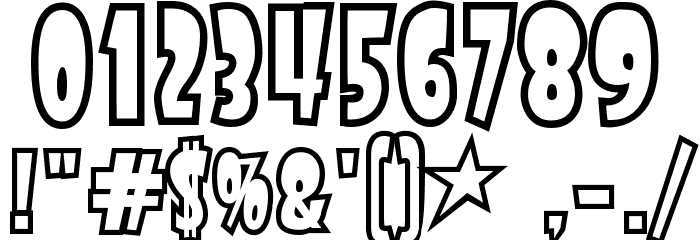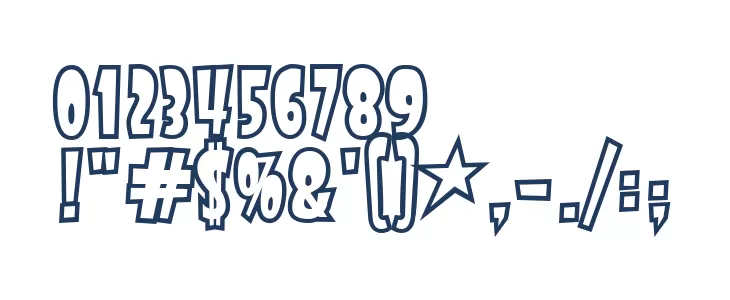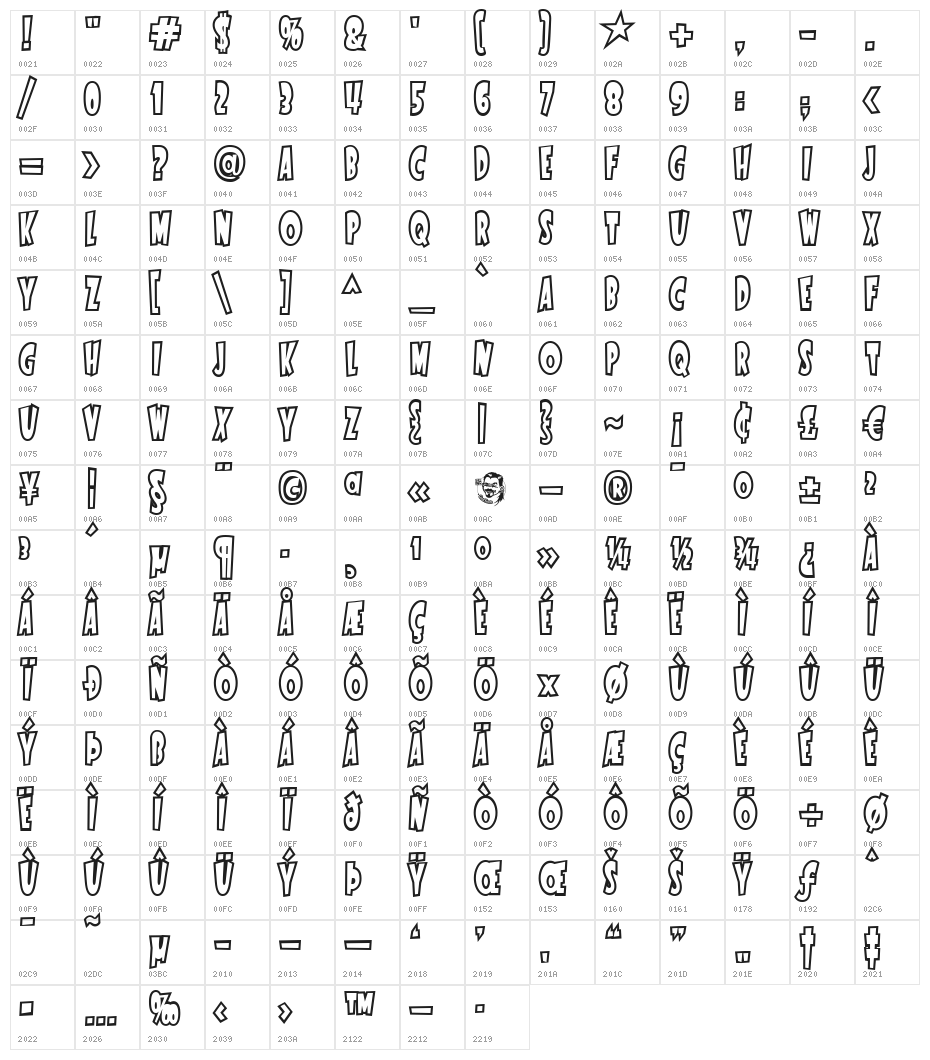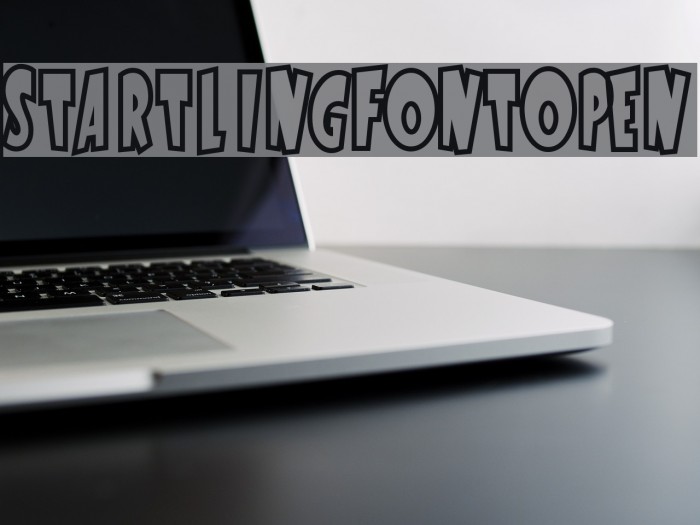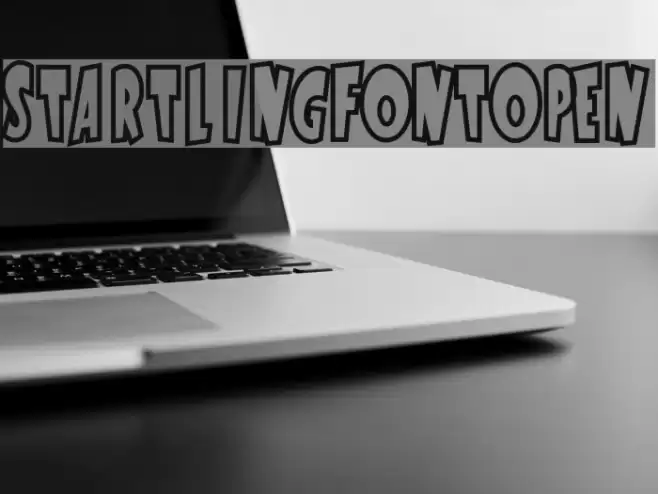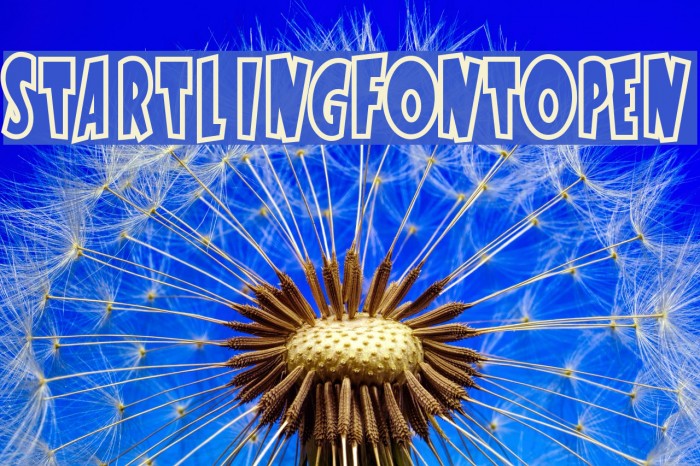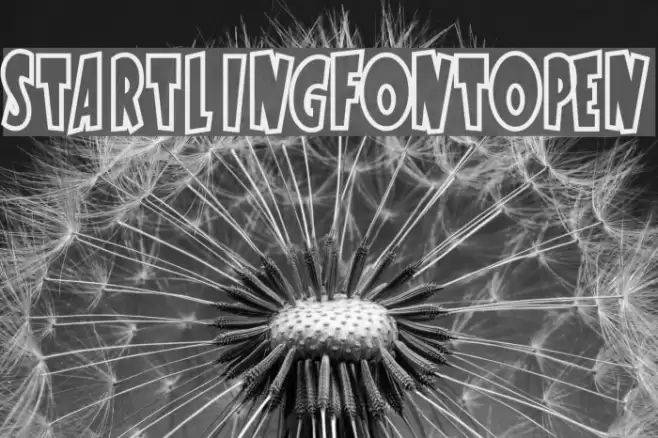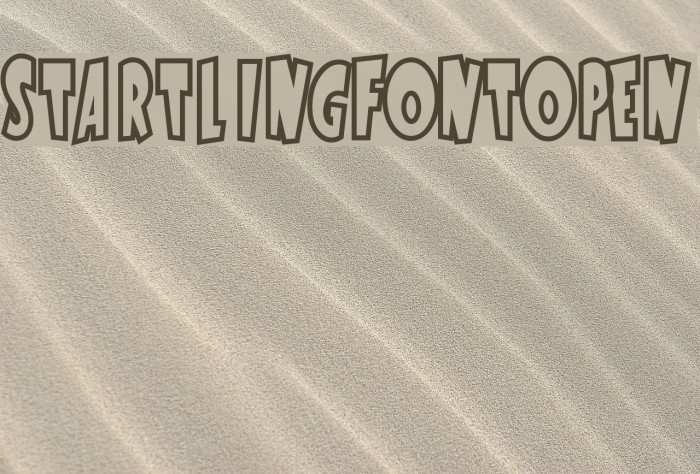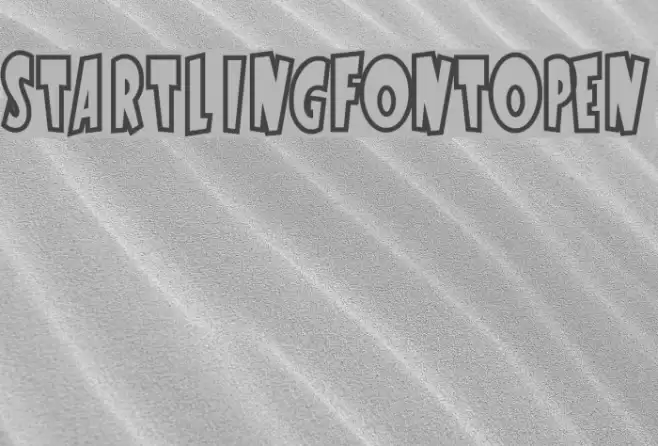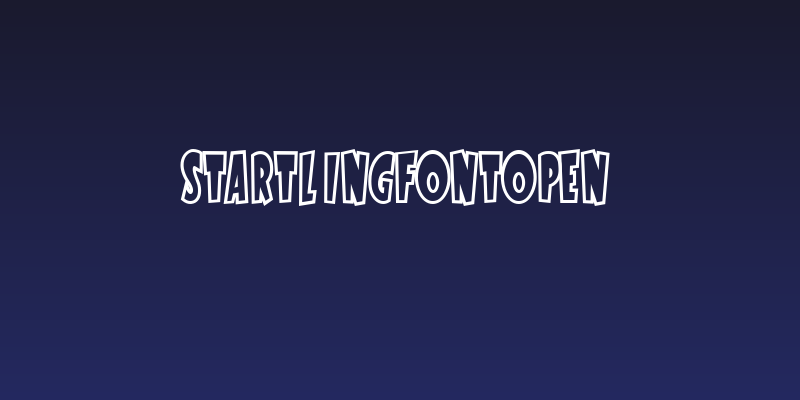
StartlingFontOpen Font
StartlingFontOpen Description
This font features bold, dynamic characters with a playful and energetic style. Each letter is outlined, giving it a striking appearance that stands out. The uppercase and lowercase letters maintain a consistent height, contributing to a cohesive look. The numbers and special characters are designed with the same bold outline, ensuring uniformity across all glyphs. The font's exaggerated forms and thick strokes make it ideal for attention-grabbing designs. Its unique style is perfect for projects that require a fun and lively aesthetic.
| Overall Style | Playful, Energetic, Bold |
| Proposed Projects | Ideal for comic books, children's posters, playful branding, and eye-catching headlines. |